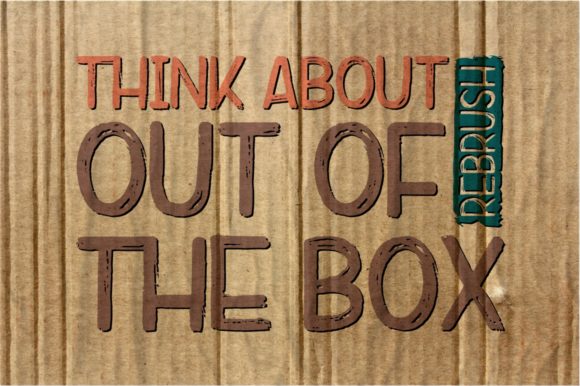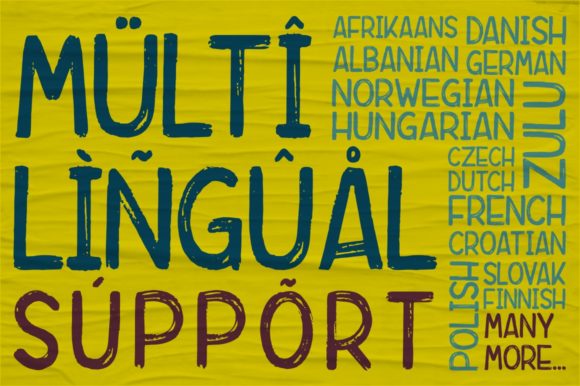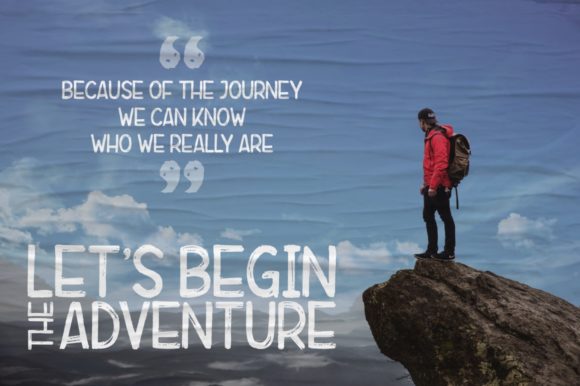
Introduction to Rebrush Font
Have you ever been working on a creative project and felt like something is missing, but you can’t quite put your finger on it? You’ve got the perfect concept, the ideal color palette, and a clear vision, but the typography just isn’t hitting the mark. That’s where the Rebrush Font comes in – a natural brush font with a bold texture that adds an organic and natural style to any design.
As a valuable resource for designers, the Rebrush Font is perfect for creating high-quality designs that stand out from the crowd. With its transparent background, it’s ideal for use in a variety of creative projects, from logos and branding to book covers and Instagram posts. And the best part? It’s available for free download, making it an essential design resource for any designer looking to elevate their work.
Key Features of Rebrush Font
- High-quality design resource suitable for creative projects
- Unique, hand-drawn design with a transparent background
- Extensive character set, including Latin and Cyrillic alphabets
Honest Review: Rebrush Font
I recently stumbled upon the Rebrush Font and was excited to give it a try. As a designer, I’m always on the lookout for high-quality design resources that can elevate my creative projects.
- The Rebrush Font offers a unique, hand-painted look that adds a personal touch to any design.
- The transparent background option allows for seamless integration with other design elements.
- The Rebrush Font is a single-style font, which may limit its versatility for complex designs.
Overall, I’m impressed with the Rebrush Font’s unique style and free download option. While it may have some limitations, it’s an excellent resource for designers working on creative projects that require a touch of personality.
Rebrush Font is a versatile design resource that can be used in a variety of creative projects, including branding, marketing materials, and editorial designs. Its high-quality design and transparent background make it an ideal choice for designers looking to create a seamless and professional look.